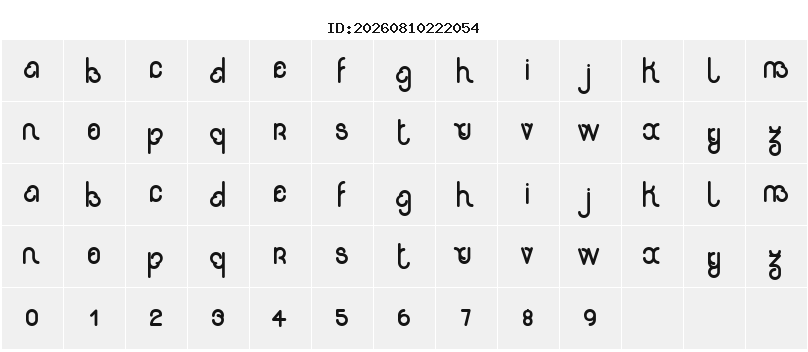
rondi Preview
• Designer: Ewen Prigent
About rondi.ttf
rondi.ttf is a modern, elegant sans-serif font designed for ultimate readability and visual harmony. Perfect for branding, headlines, web design, and print materials.